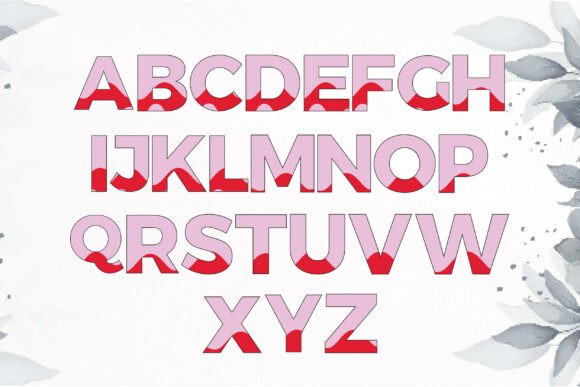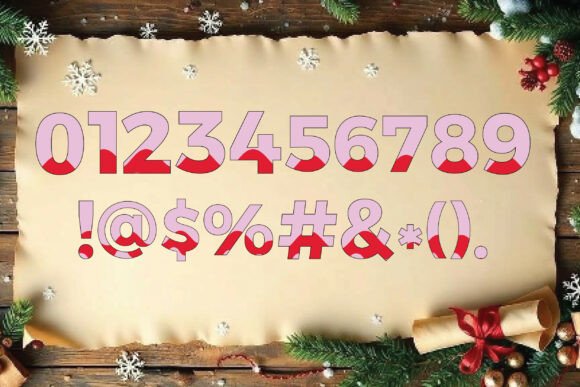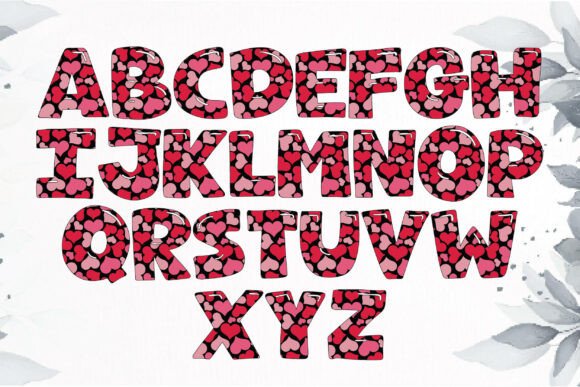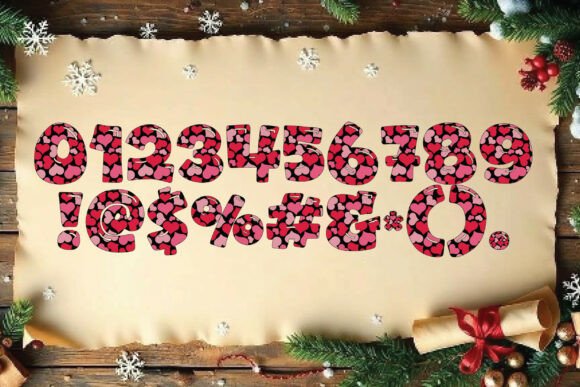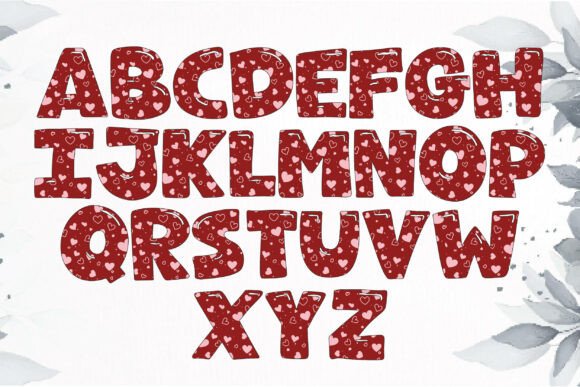
Introduction to Romantic Valentine’s Font
As a designer, there’s nothing quite like the thrill of creating a project that captures the essence of love and romance. It’s a moment when all your design skills come together to convey the perfect message. You’re sitting at your desk, surrounded by scraps of paper, fonts, and design software, trying to come up with the perfect idea for a Valentine’s Day card or a wedding invitation. And then, it hits you – the perfect font, the one that will make your design stand out and speak directly to the heart.
That’s where the Romantic Valentine’s Font comes in – a bundle of four beautiful love-themed fonts that will elevate your designs to the next level. With its high-quality, free download, and versatility in various design software, this font bundle is a must-have for any designer looking to create something truly special for their next creative project.
Key Features of Romantic Valentine’s Font
- High-quality, intricate design perfect for creative projects and romantic occasions.
- Includes a transparent background option for seamless integration into various design resources.
- Supports various sizes and resolutions, making it ideal for print and digital applications.
- Unique, hand-drawn style with a touch of elegance, perfect for adding a personal touch to your design.
- Designed to be versatile and easily customizable for various design projects, from invitations to greeting cards.
Honest Review: Romantic Valentine’s Font
I recently came across the Romantic Valentine’s Font while searching for design resources for a creative project, and I was excited to give it a try. As a designer, I’m always on the lookout for high-quality fonts that can add a personal touch to my work.
What works well with this font is its elegant and sophisticated design, perfect for romantic and Valentine’s Day-themed projects. It’s also available for free download, which is a huge plus for designers on a budget. The font comes with a transparent background, making it easy to layer over other design elements.
- ✨ Elegant and sophisticated design
- ⚠️ Limited character sets
Overall, I would say that the Romantic Valentine’s Font is a great addition to any designer’s toolkit, especially for one-off creative projects. However, designers working on more extensive projects may want to explore other options.
To get the most out of the Romantic Valentine’s Font, use it with a transparent background to create a beautiful and elegant design. You can also pair it with other design elements, such as hearts, flowers, and Cupid’s arrows, to create a romantic and festive atmosphere.
The Romantic Valentine’s Font is perfect for designing Valentine’s Day cards, posters, invitations, and social media graphics. It’s also great for creating wedding invitations, anniversary cards, and other romantic designs.